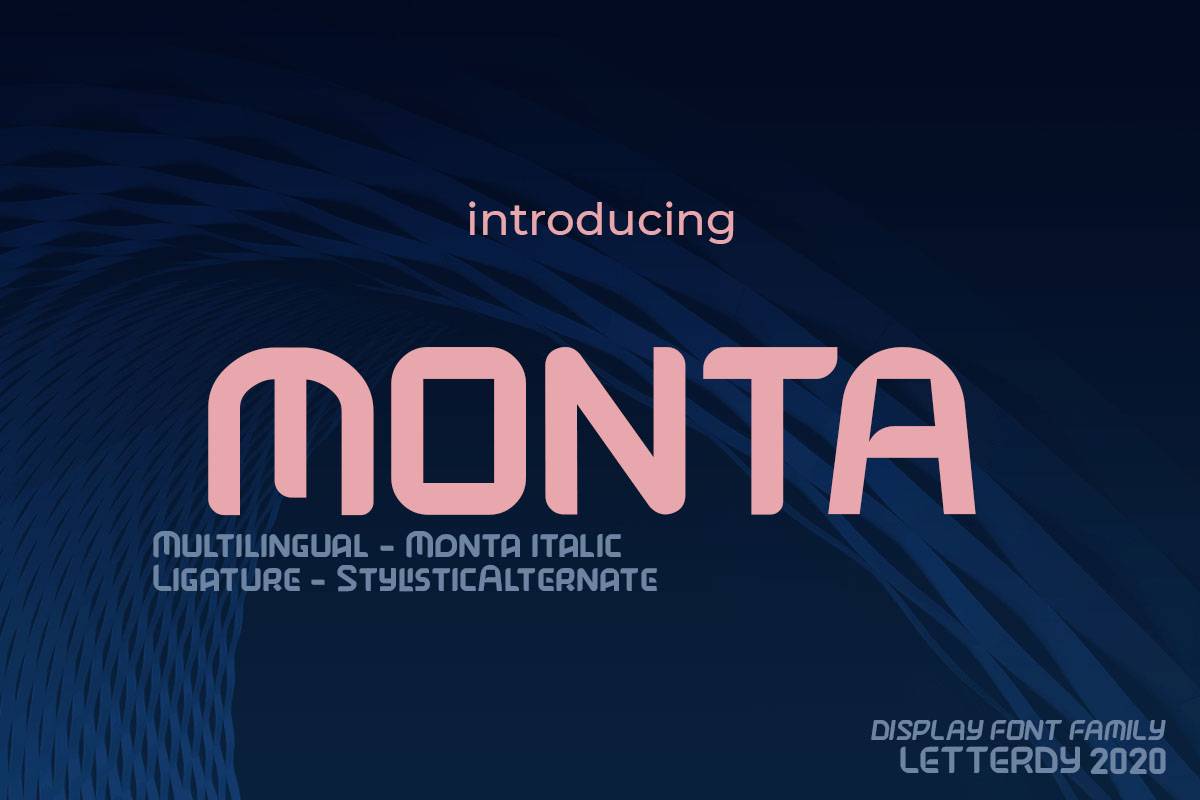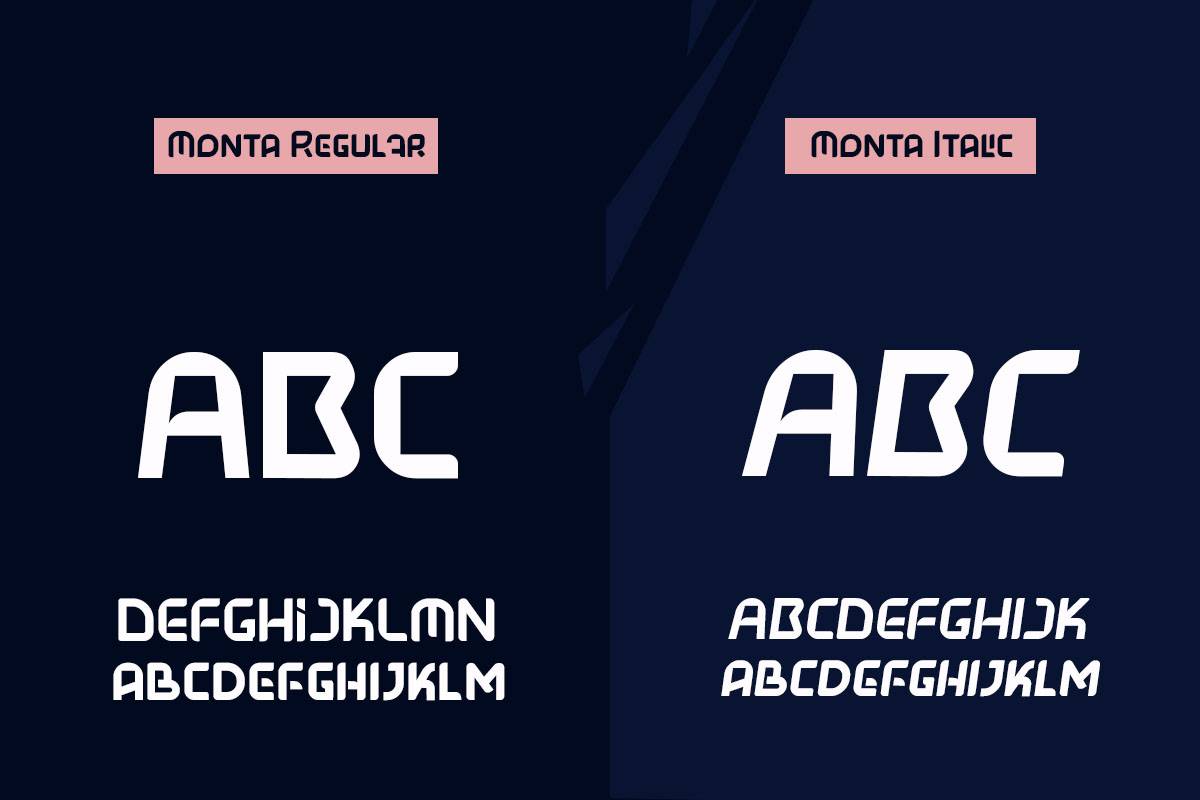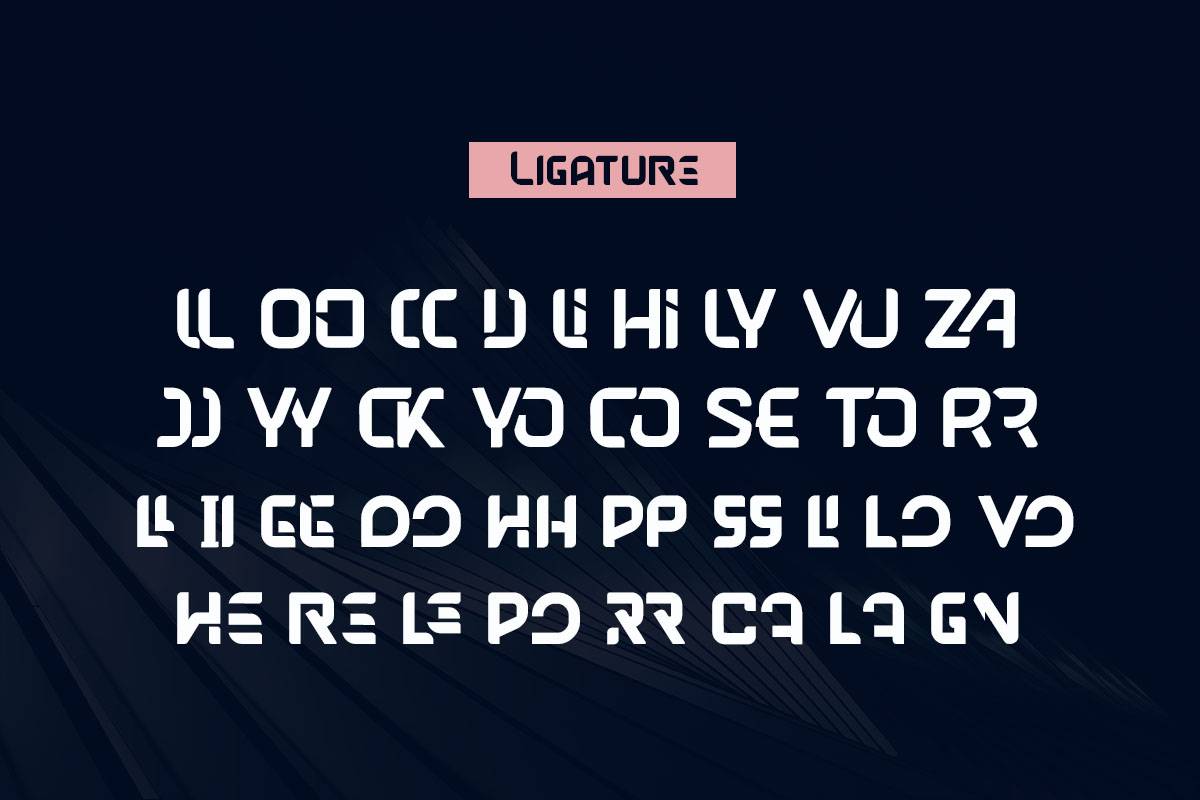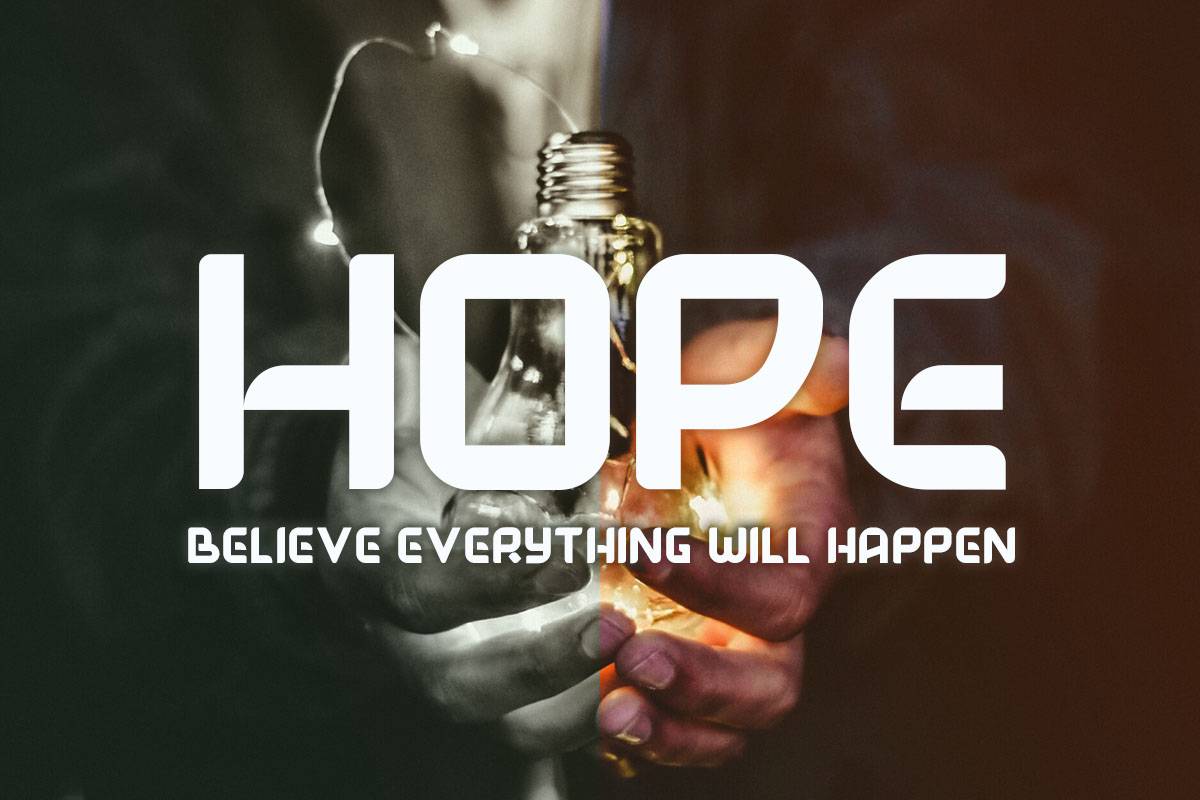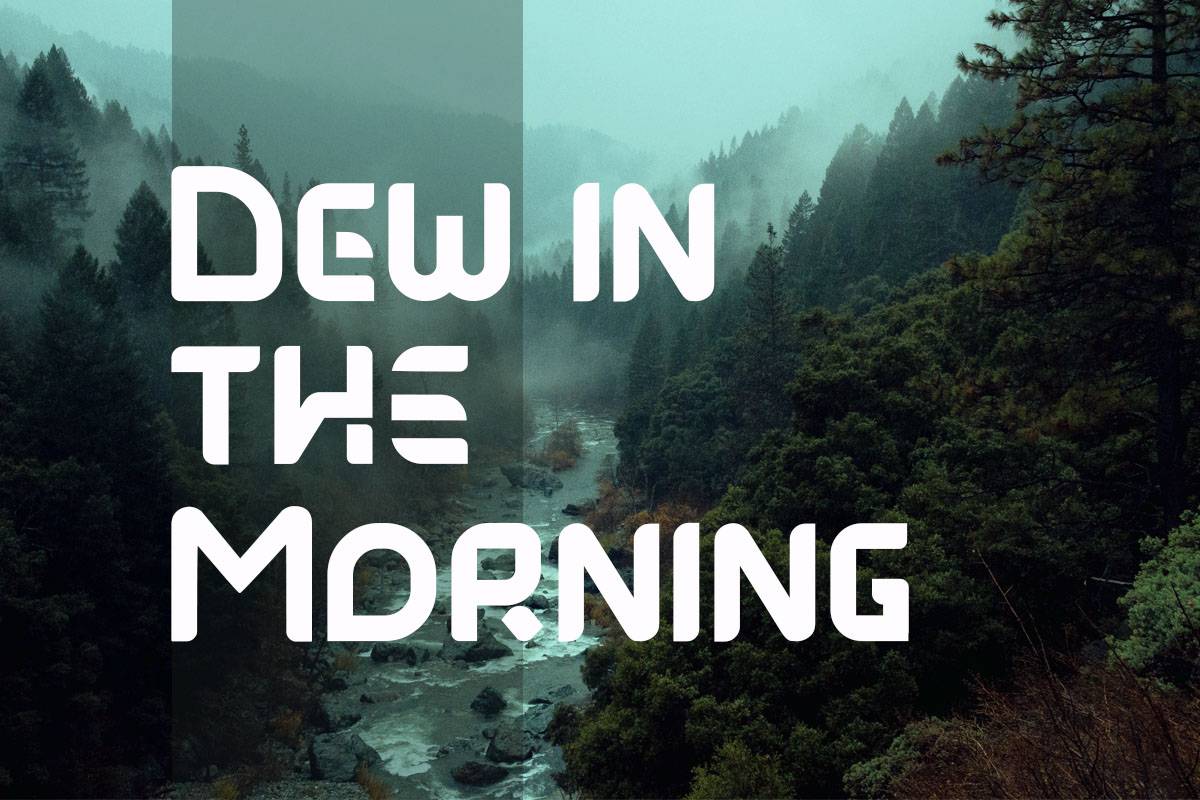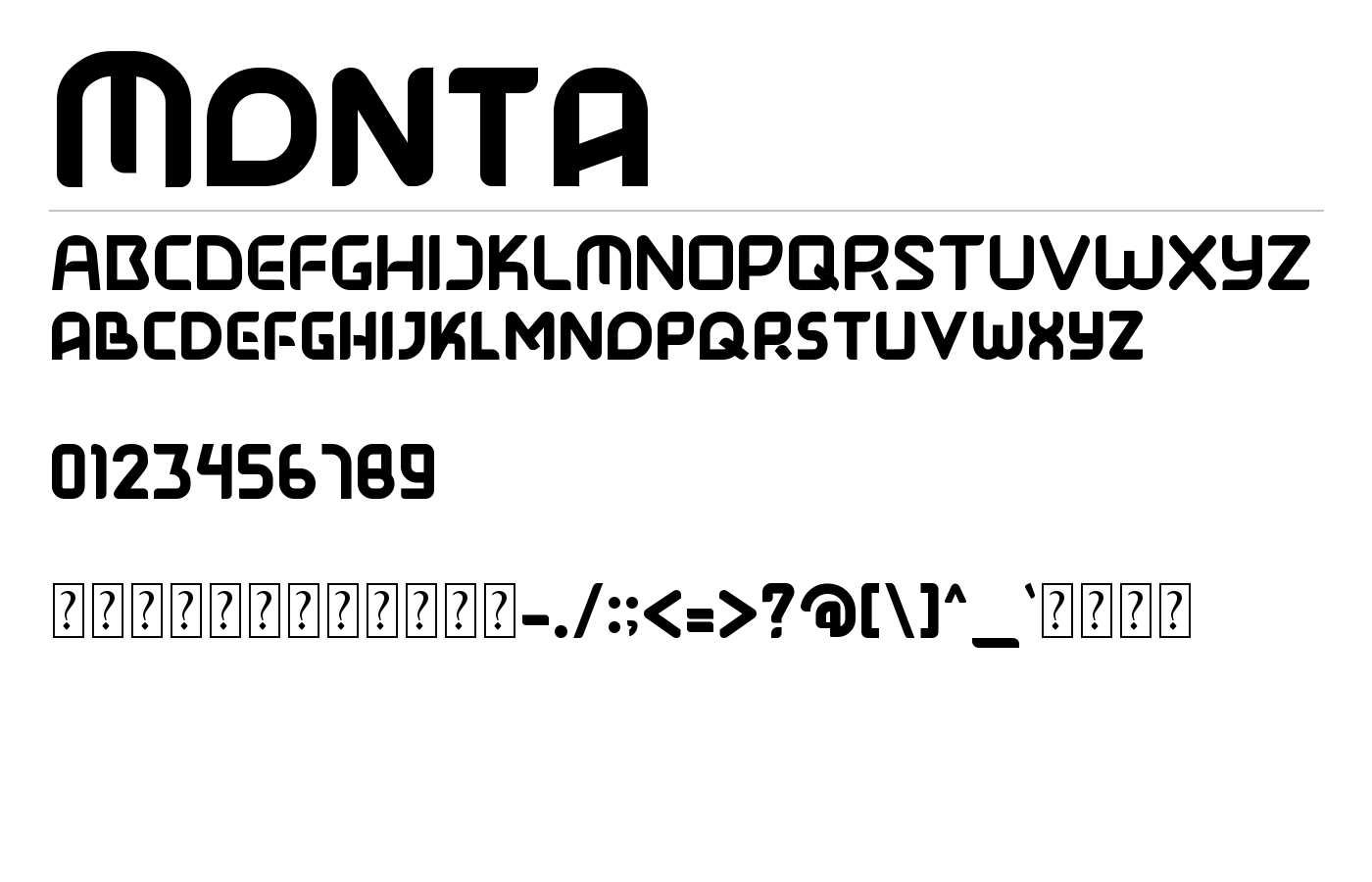
Monta is a bold, modern sans serif font with a distinctive geometric and slightly futuristic vibe. Its strong, rounded strokes and unique letterforms create a dynamic yet clear look, making it ideal for striking headlines, branding, and creative projects that want to convey innovation and confidence. This font works well in logos, posters, and editorial design where a contemporary and memorable presence is needed.
Monta Font
About Monta Font
| Font family | Monta Font |
| Designer | Hedi Miftah |